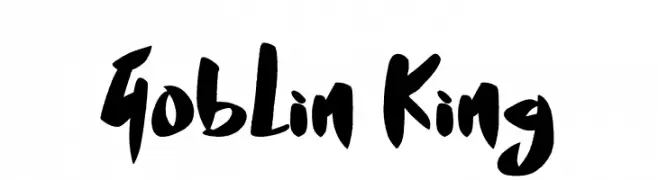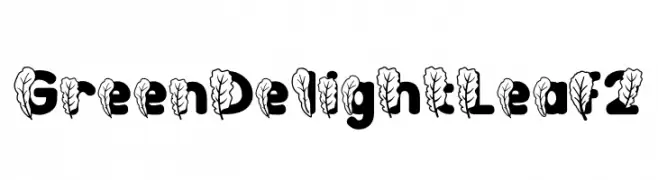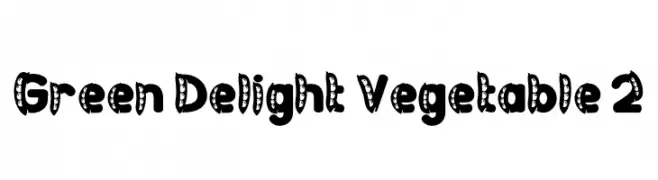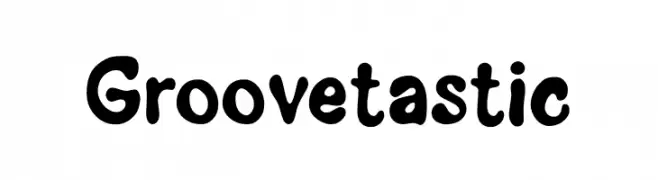
( Fonts by JSH creates )
A bold, brush-style font with dynamic and expressive characters.
( Fonts by PutraCetol Studio )
A bold, rounded font with smooth curves and a playful style.
( Fonts by PutraCetol Studio )
A bold, decorative font with leaf-patterned characters.
( Fonts by PutraCetol Studio )
A bold, decorative font with leaf motifs integrated into each character.
( Fonts by PutraCetol Studio )
A decorative font with leaf-inspired characters, perfect for nature-themed designs.
( Fonts by PutraCetol Studio )
A playful, vegetable-themed decorative font with bold, quirky characters.
( Fonts by PutraCetol Studio )
A playful and whimsical font with decorative, leaf-like patterns inside bold, rounded characters.
( Fonts by PutraCetol Studio )
A whimsical, vegetable-themed decorative font with bold, textured characters.
( Fonts by Alpaprana Studio )
A bold, playful font with a retro, groovy aesthetic.
( Fonts by PutraCetol Studio )
A playful, dinosaur-themed font with bold, patterned characters.